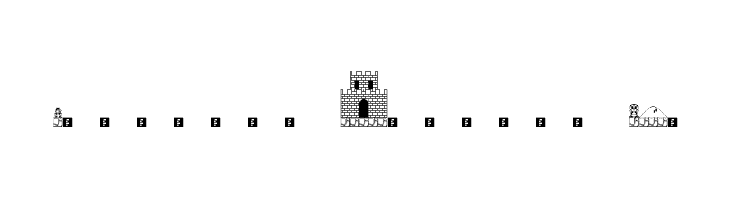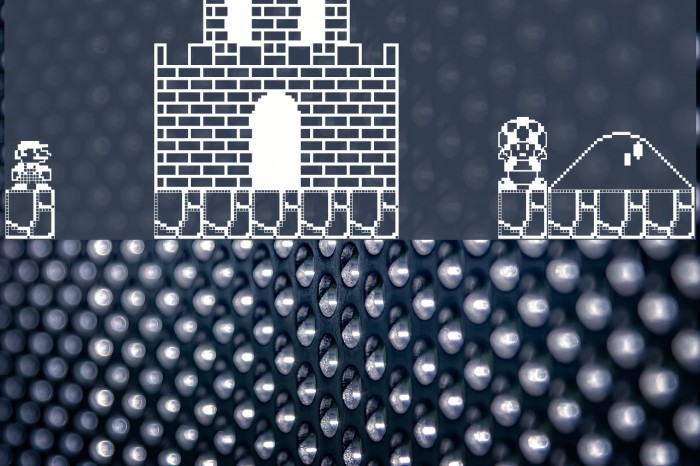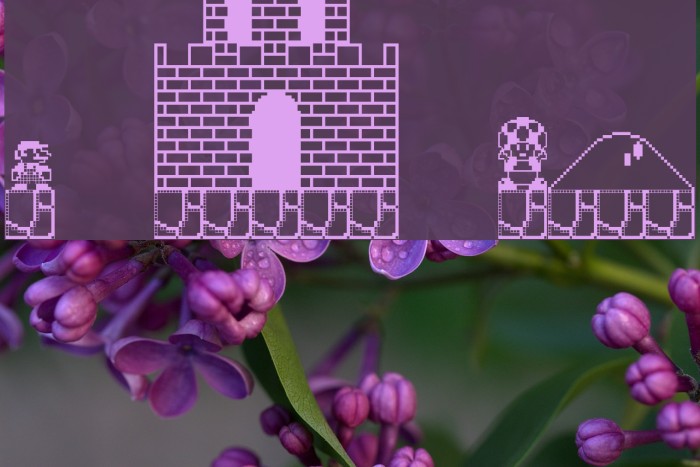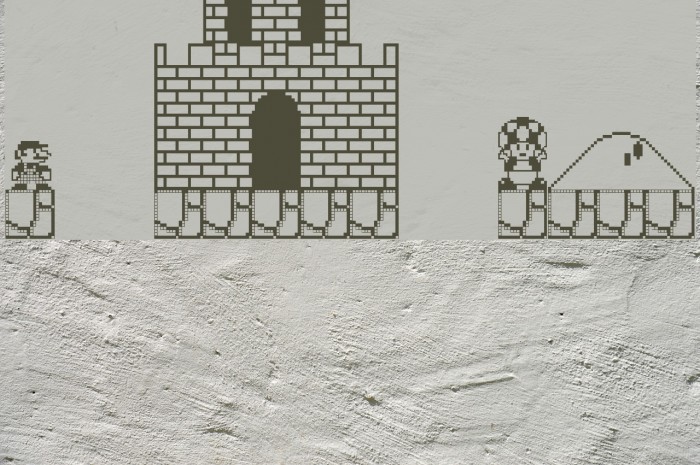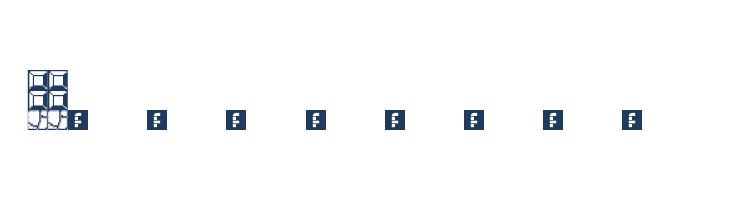
Mushroom Kingdom NBP Font
Mushroom Kingdom NBP Description
This font is a playful and nostalgic design inspired by classic video game aesthetics. It features pixelated characters that evoke a retro gaming feel, reminiscent of 8-bit graphics. The letters are blocky and uniform, with a consistent height and width, creating a cohesive and structured appearance. The font captures the essence of vintage gaming with its simplistic yet charming style, making it ideal for projects that aim to evoke a sense of nostalgia or pay homage to classic video games. The characters are well-defined, with clear edges and a straightforward design that enhances readability while maintaining a fun and engaging look.
| Overall Style | Vintage |
| Use Case | Logos, Posters, Video game design |
| Proposed Projects | Ideal for video game designs, retro-themed posters, and nostalgic branding projects. |